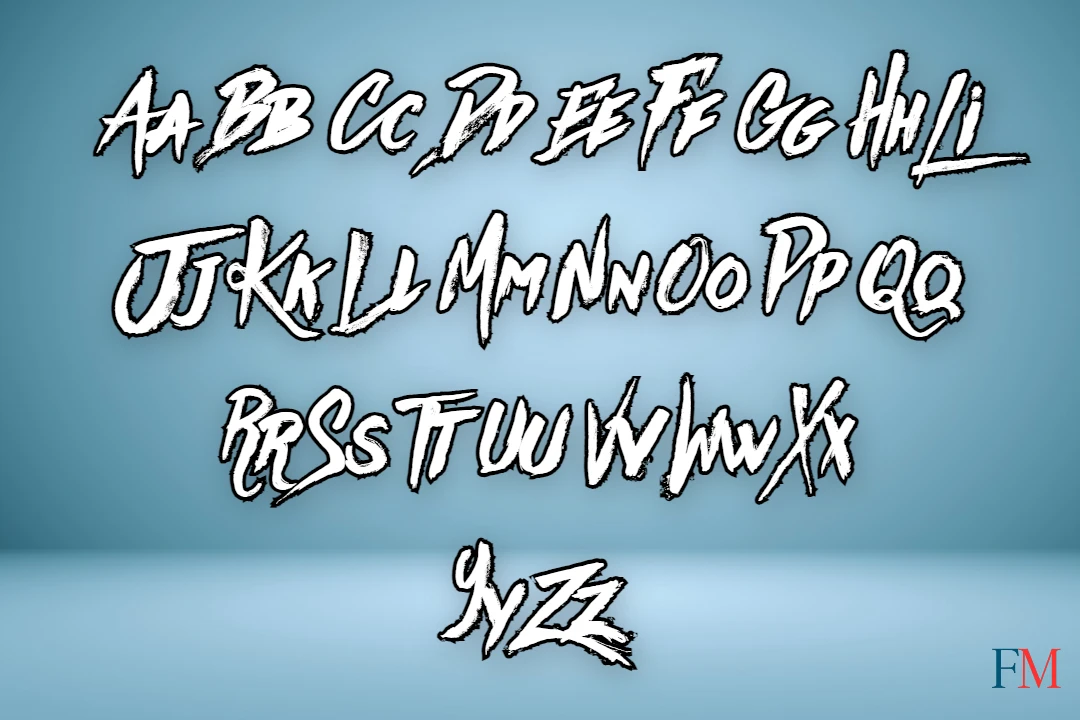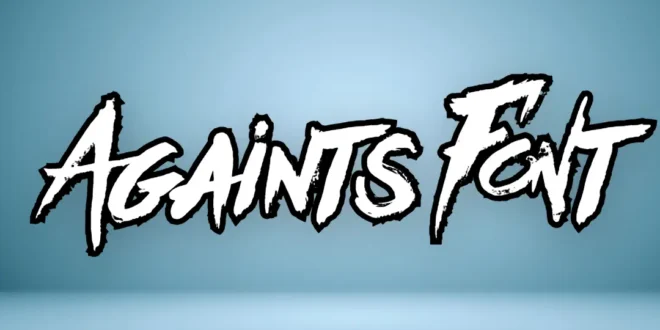
We should meet the trendy typeface that is named Against Text style and it has been propelled by Ink and colors hand-drawn brush. It was planned for Fortunes in 2014 by Ramandhani Nugraha.
This typeface is a road-wise brush text style ready for business and concentrates completely on the brush strokes.
Its single weight contains 99 brush-painted characters including capitalized, lowercase, numbers, images, accentuation, broad language upholds, updated terrible symbols, images, and numerous exceptional characters.
Usage of Againts Font
Because of its hand-drawn plan and horrendous look, this is an ideal textual style for your logo plans, terrible shirt, item bundling, marking projects, typographic plans, site and application improvements, pOwerpoint introductions, business cards, welcoming cards, banners, etc.
To give a one-of-a-kind glance at your titles and titles then, at that point, embrace this textual style this typeface of errands.
It is appropriate for making your eye-getting citations, film titles, video gaming purposes, Lodging/Club names, Item names, and many related things that need a typographic look.
Font Details
| Name | Againts Font |
| Designer | Ramandhani Nugraha |
| Type | Brush |
Why Is Againts a Good Font?
There are loads of reasons that make this textual style novel from a few different typefaces. This textual style is brimming with extra ligatures, elaborate substitutes, very quality ligatures, and broad language supporting that is a decent text style for giving a typographic touch to your showcase plans.
Who Designed the Againts Font?
This is an extremely exceptional and stunning brush typeface and the planner of this typeface is Ramandhani Nugraha, who has planned it in 2014 for Fortunes.